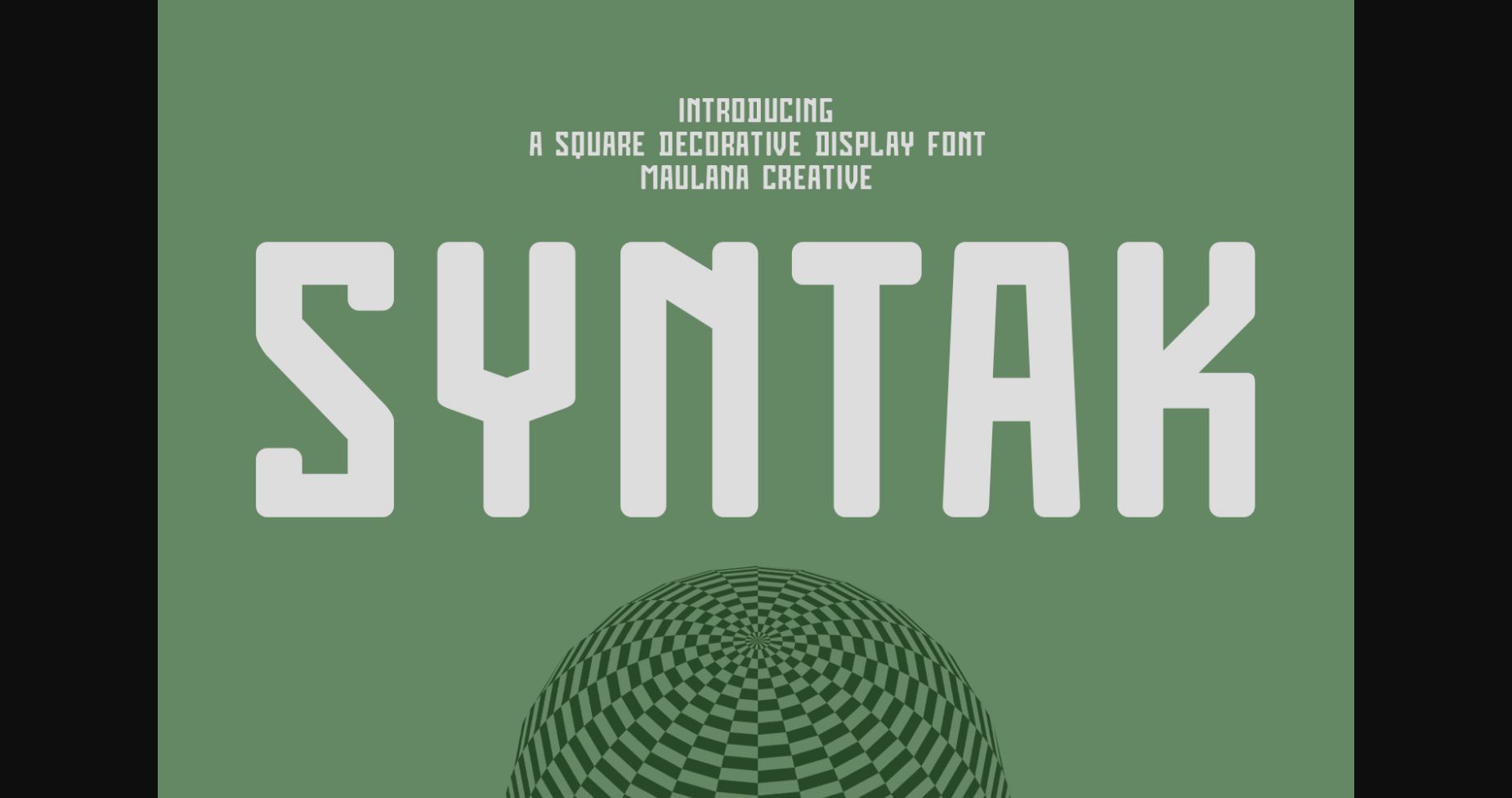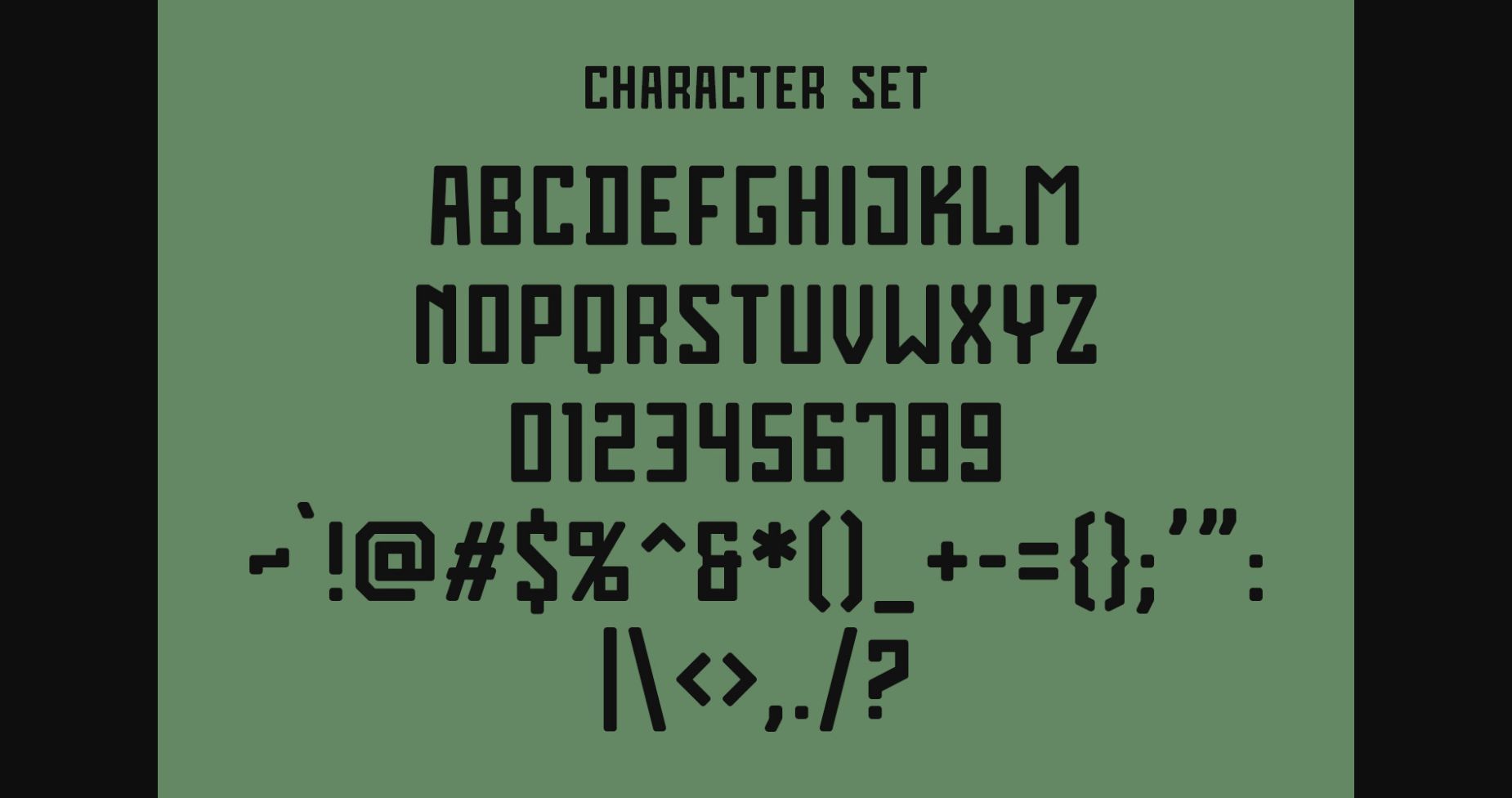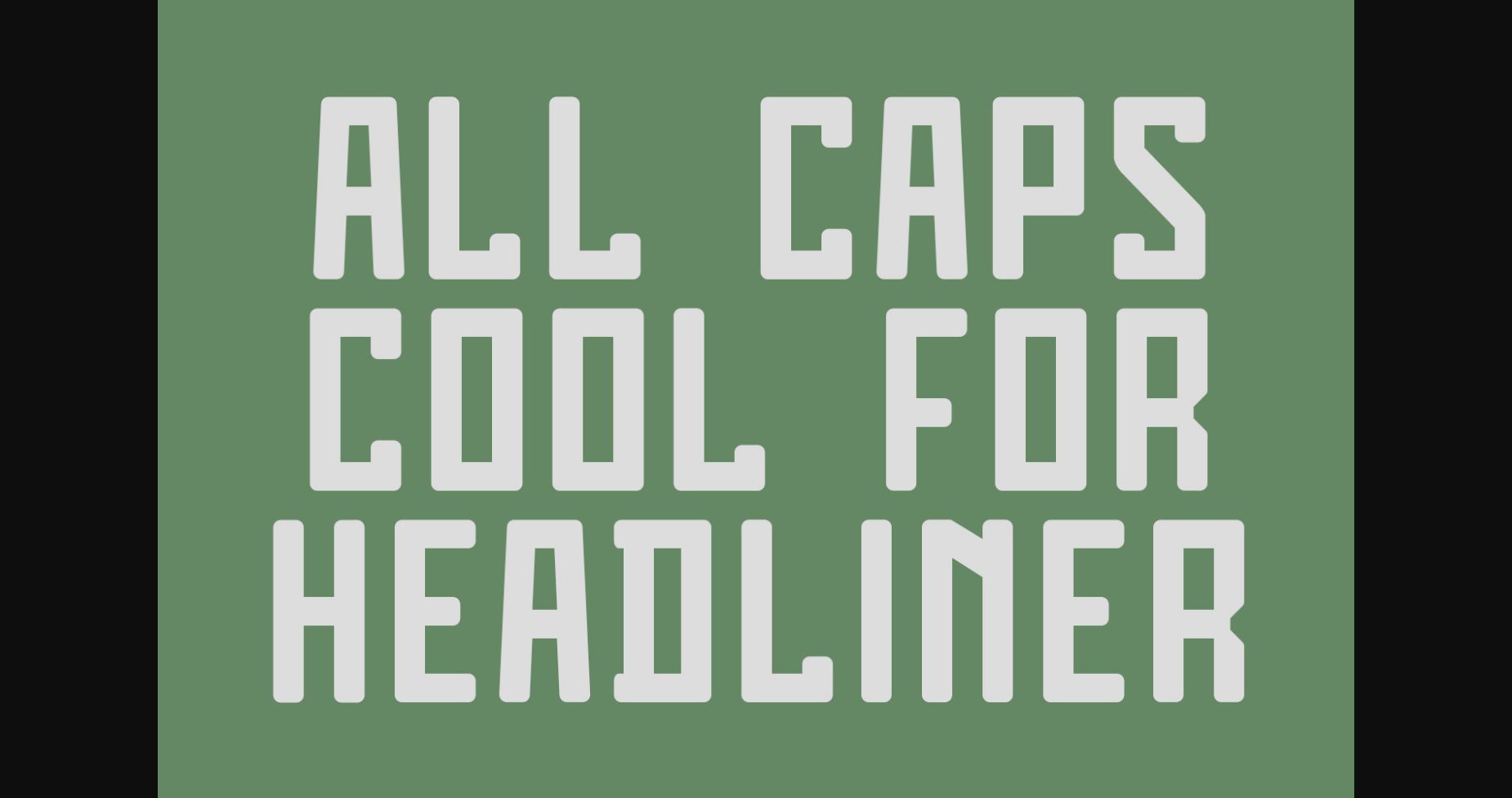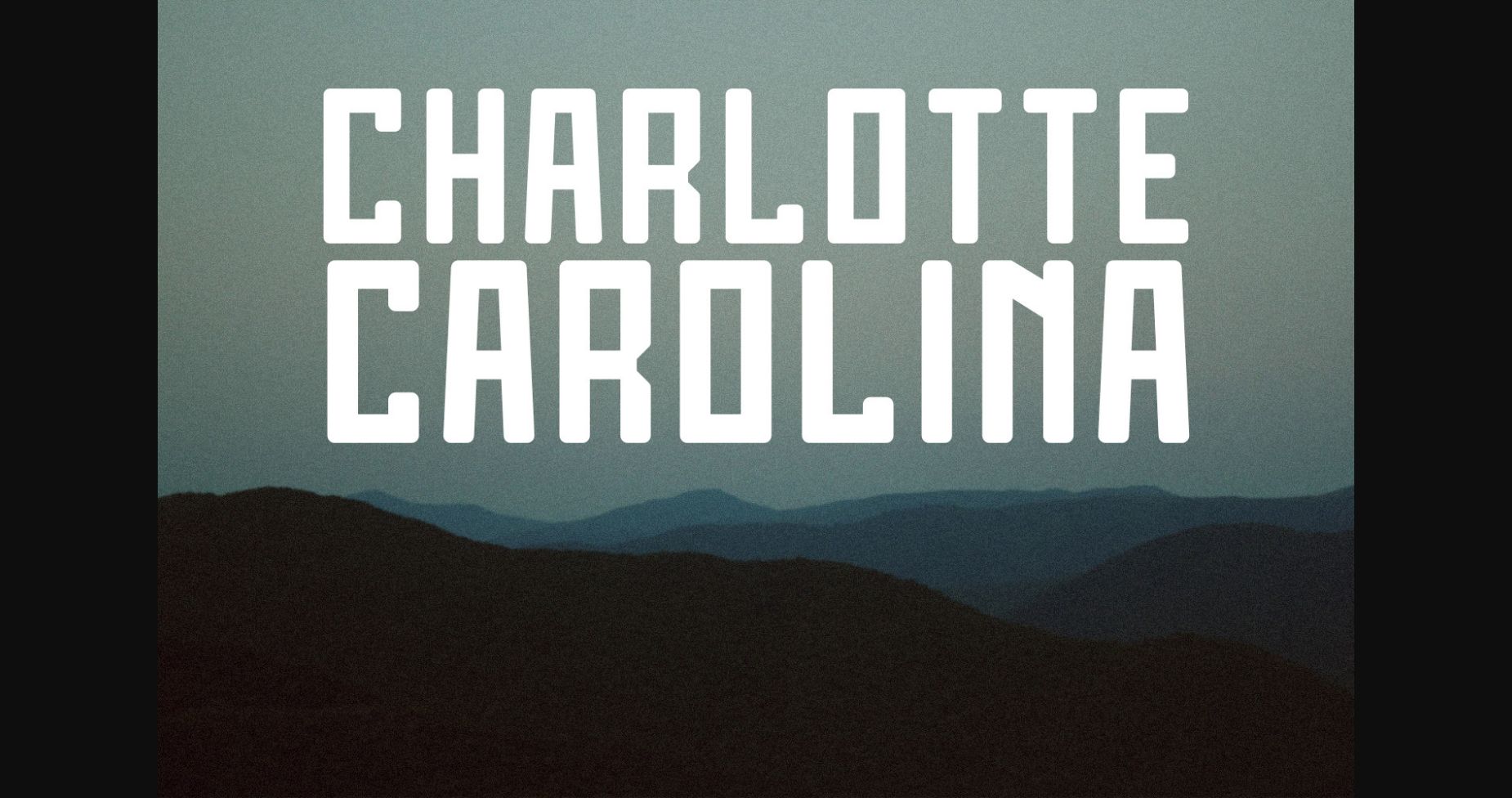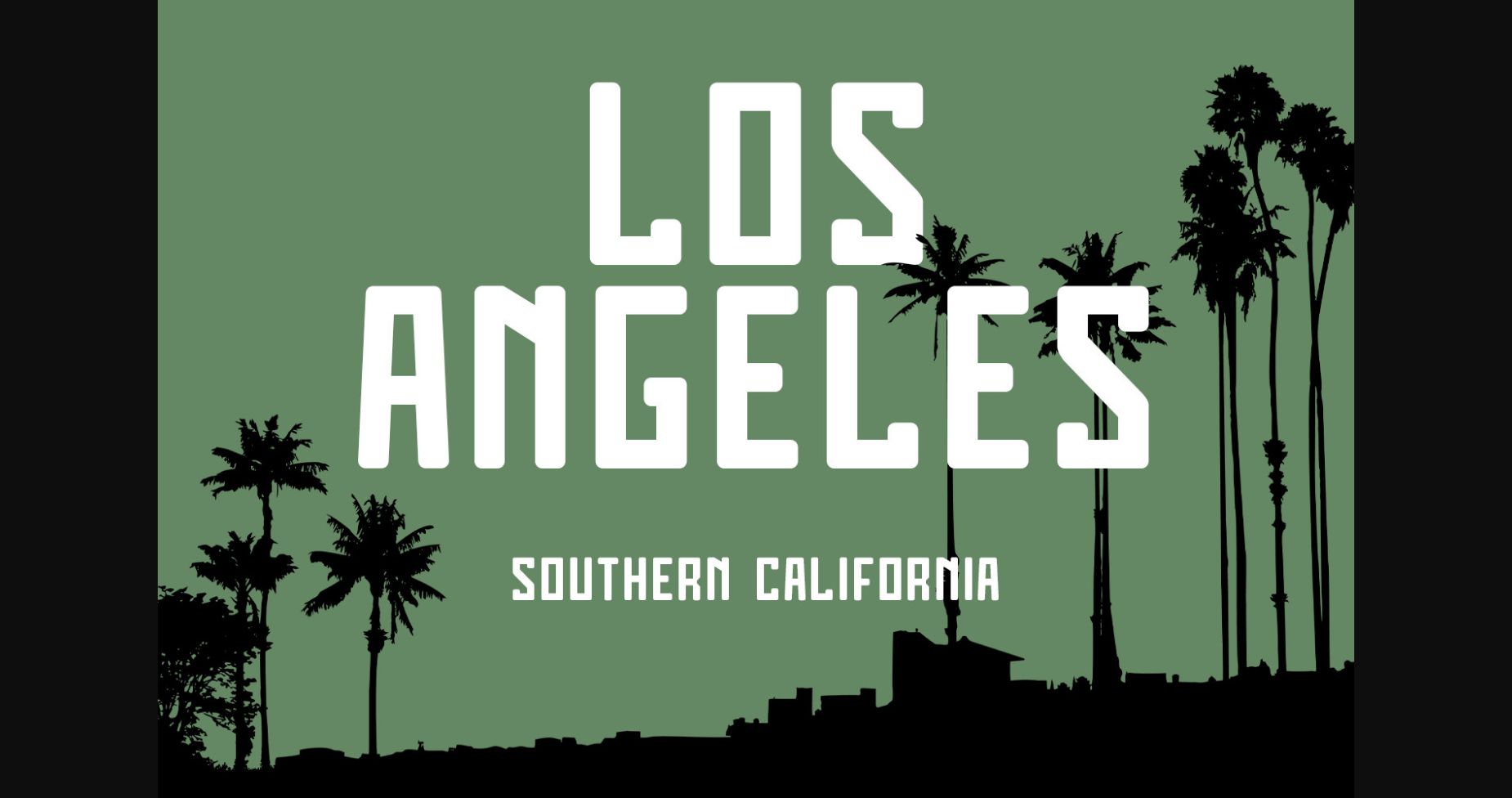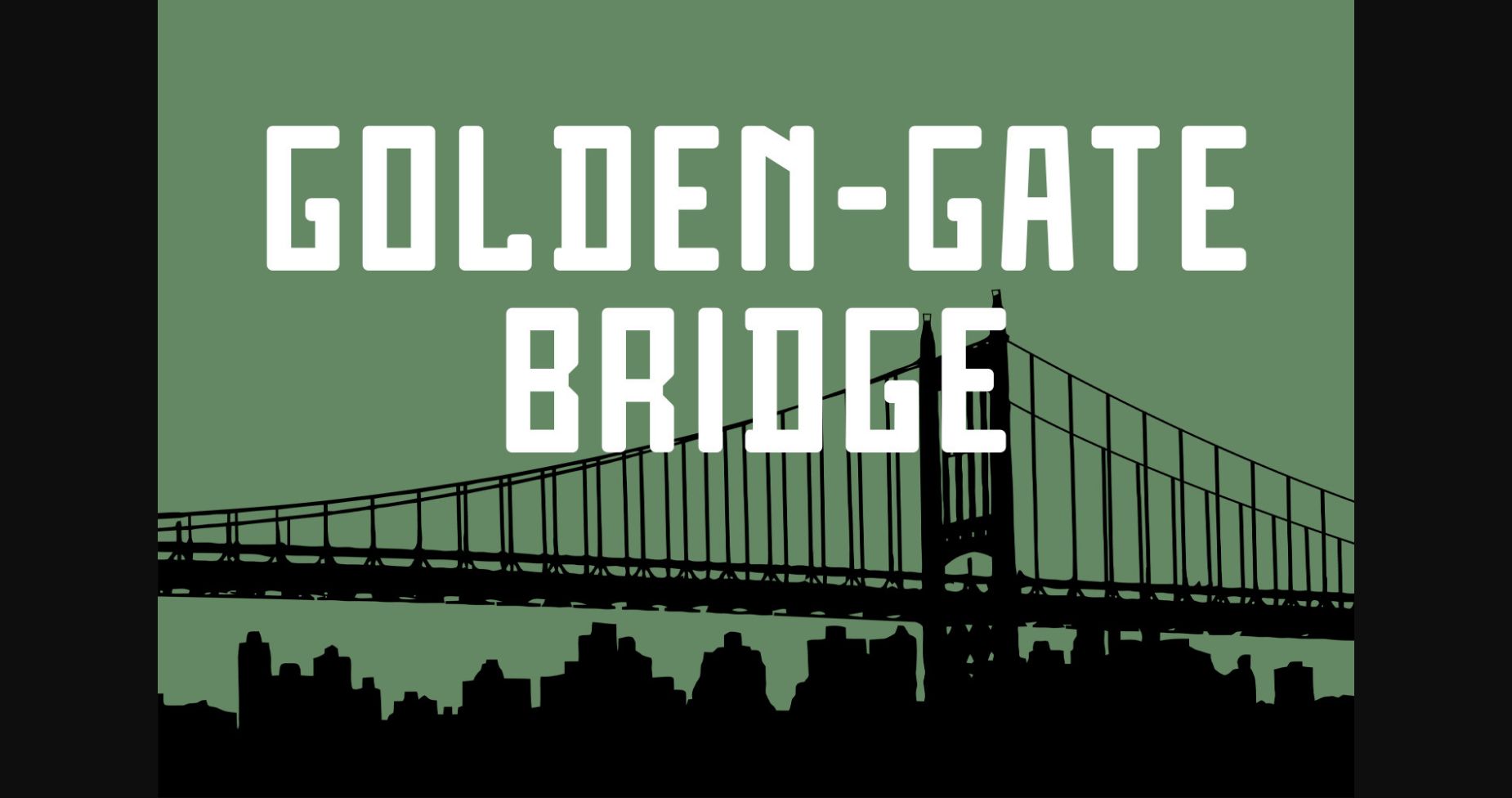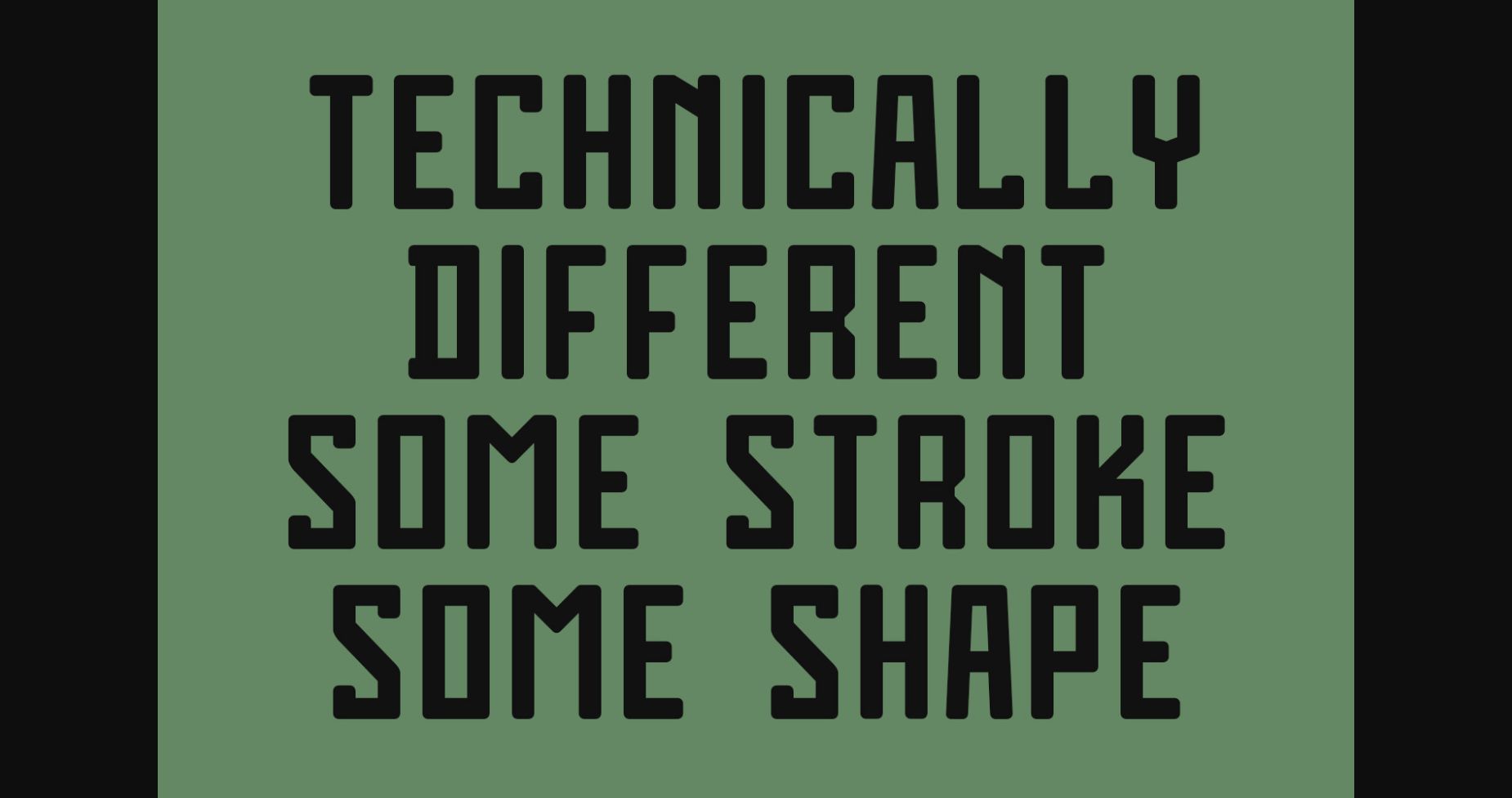
Syntak Font
About Syntak Font
Syntak combines modernity and attractiveness with a techno vibe that’s perfect for projects requiring a cutting-edge look. With bold lines and sharp shapes, each letter exudes a high-tech sophistication that’s ideal for banners, logos, and other design elements. This font is sure to make a bold statement and impress your audience.